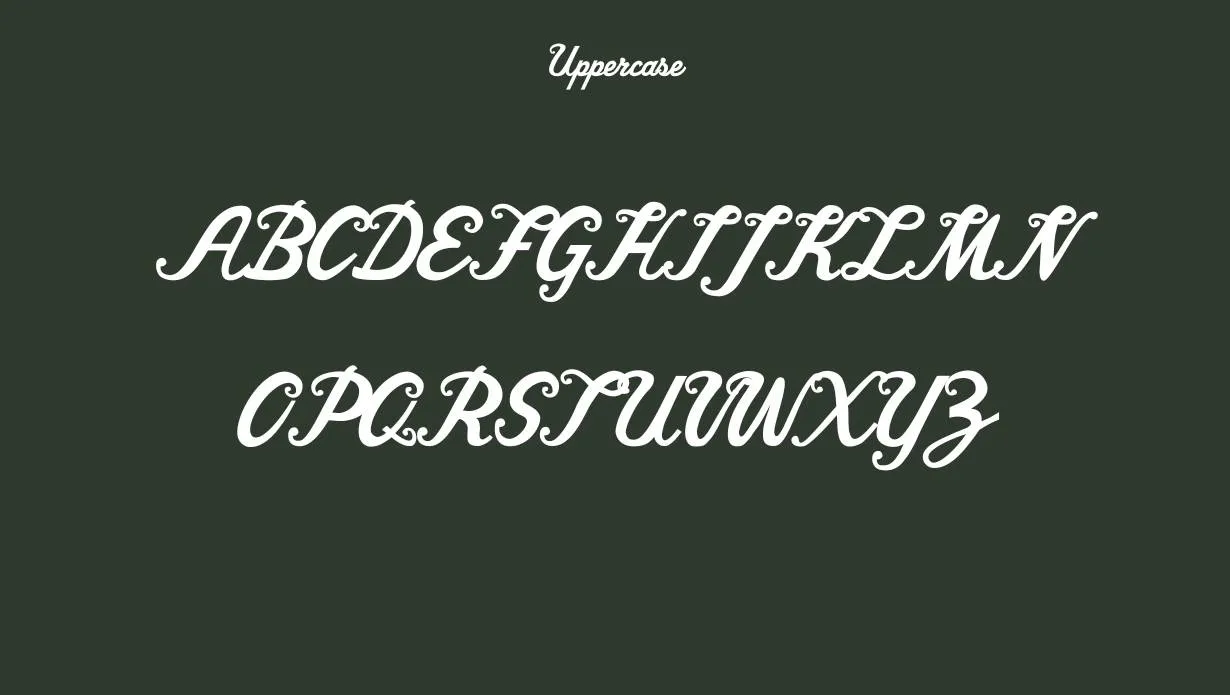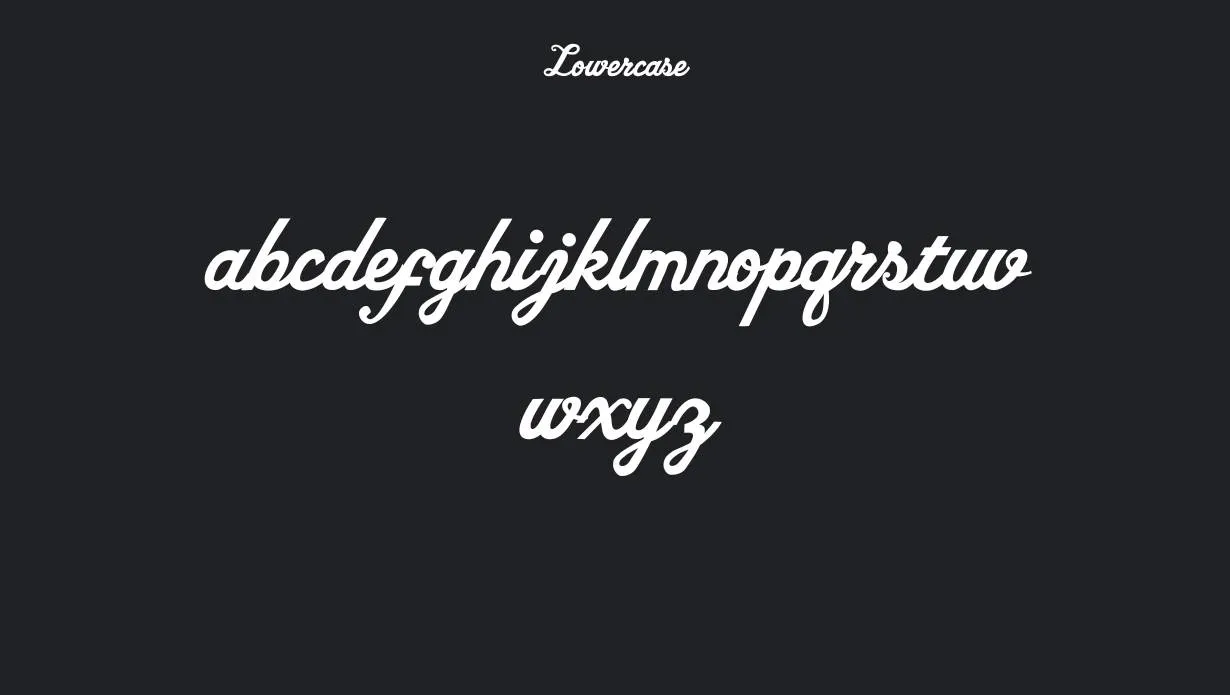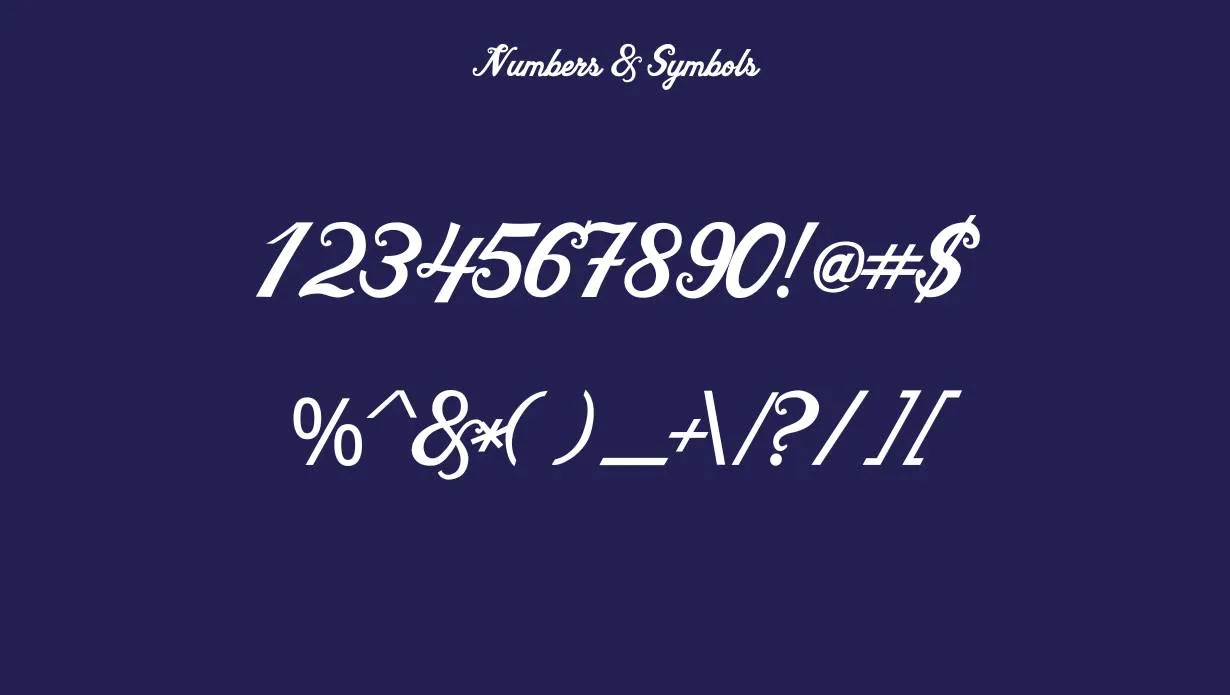
Vitrina Font belongs to the script font family that was designed by Pablo A. Medina and released by Design Is Culture.
This font is based on the letters painted on a Window for a restaurant named “Latin American Cafeteria”. The word “Virtina” means “StoreFront Window” in Spanish.
| Name | Vitrina Font |
| Designer | Pablo A. Medina |